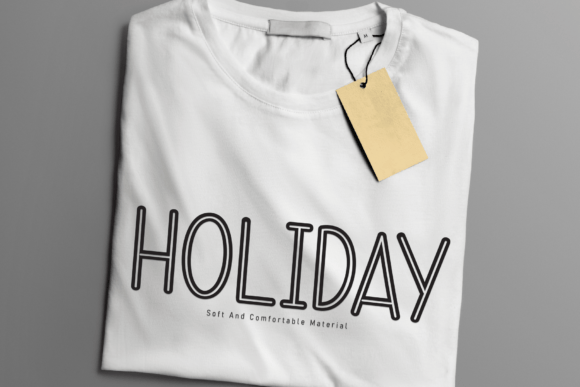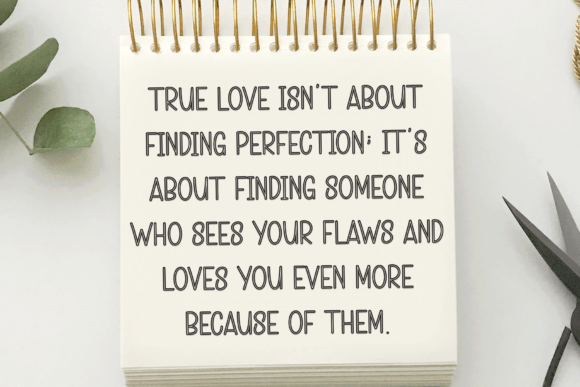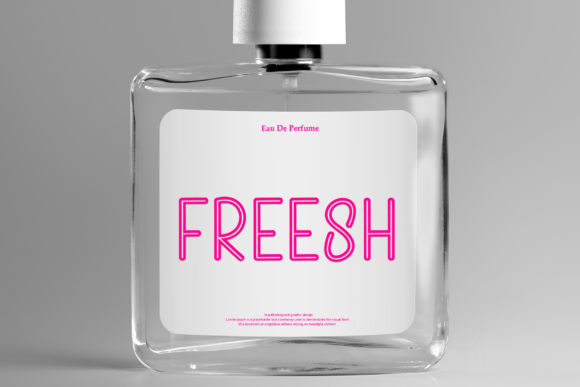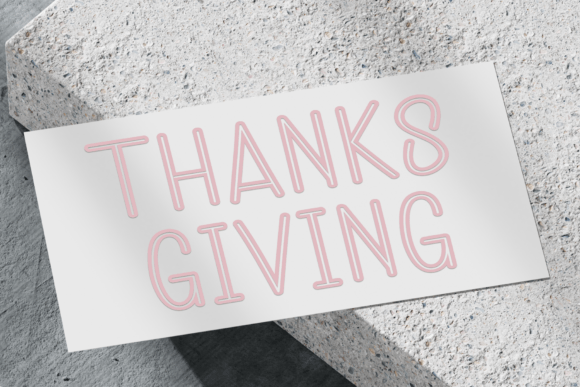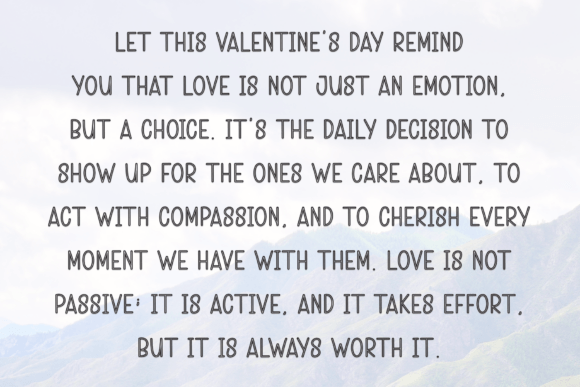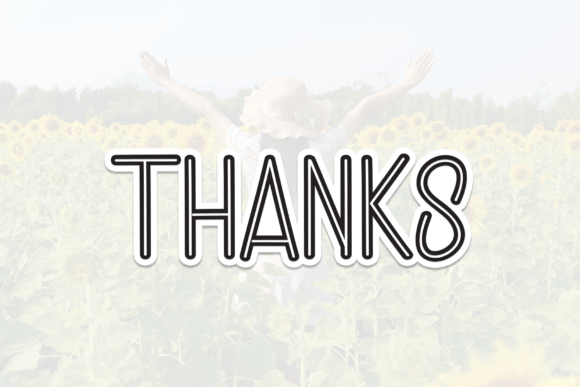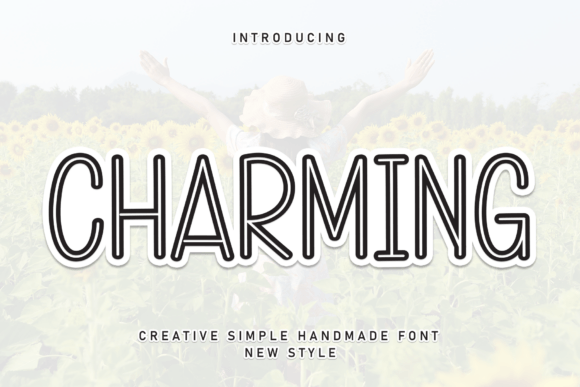
Discover the Joy of Handwritten Charm
As a designer, there’s nothing quite like the thrill of bringing a client’s vision to life. But sometimes, it’s the smallest details that make the biggest impact. Like the moment you stumble upon the perfect font to match the tone of a project. For me, that moment happened when I discovered the Charming Font – a delightful, handwritten display font that adds a sprinkle of joy and sweetness to any creative endeavor.
Infused with whimsical vivacity, Charming Font is perfect for crafting unique designs that need a lighthearted and delightful touch. Whether you’re designing wedding invitations, cards, or anything in between, this charming font is sure to bring a smile to your face and your client’s. And as a designer, you know how valuable it is to have a versatile tool like Charming Font in your toolkit – one that can effortlessly elevate your designs and make them truly unforgettable.
Key Features of Charming Font
- Font Family: Charming Font comes in 3 different font families: Regular, Italic, and Bold, offering a wide range of options for designers and typographers.
- Character Count: The font family consists of 256 characters, including uppercase and lowercase letters, numerals, punctuation marks, and special characters.
- Unique Characteristics: Charming Font features a unique, hand-drawn design with subtle flair and elegance, making it perfect for creative and artistic projects.
Charming Font Review
First off, let me say that I was really charmed by this font. ✨ The overall aesthetic is whimsical and playful, making it perfect for projects that need a touch of magic. The designer has done a great job of creating a cohesive and consistent look across various weights and styles.
Here are some of the things I love about Charming Font:
- ✨ Unique letterforms that add to the whimsical feel
- ✨ Excellent legibility, even at smaller font sizes
- ✨ A wide range of weights and styles to choose from
- ✨ Supports both Latin and Cyrillic scripts
However, I do have a few concerns:
- ⚠️ The font may be too ornate for some projects, where a cleaner look is preferred
- ⚠️ Some characters may be too similar, making it harder to read at a glance
Overall, I think Charming Font is a great addition to any designer’s toolkit. While it may not be perfect for every project, it’s definitely worth considering for those that need a touch of magic. With a little creativity, I’m sure designers will find plenty of ways to use this charming font to create something truly special.
Getting the Most Out of Charming Font
For optimal results, use Charming Font in combination with other elegant design elements, such as cursive scripts and soft pastel colors.
Charming Font is ideal for use in wedding invitations, baby shower invitations, and other romantic or whimsical designs.
Great Vibes is a modern script font that’s perfect for adding a touch of whimsy and personality to your designs. It’s ideal for creative projects, such as wedding invitations, advertising campaigns, and social media graphics. Compared to Charming Font, Great Vibes is more playful and expressive, making it suitable for projects that require a unique and attention-grabbing feel.
Q: Are there any font weight or style limitations?
No, Charming Font offers a comprehensive range of weights and styles, including light, regular, medium, bold, and italic. You can use these styles in combination to create unique and visually appealing typography for your designs.